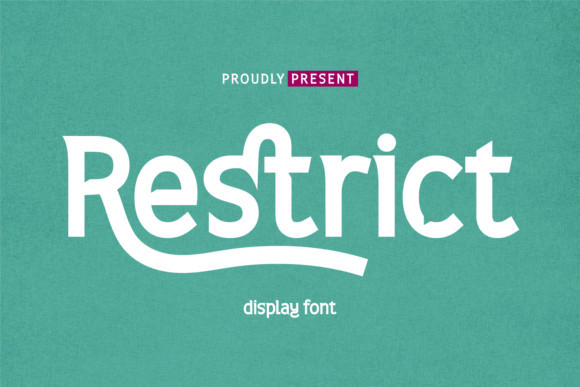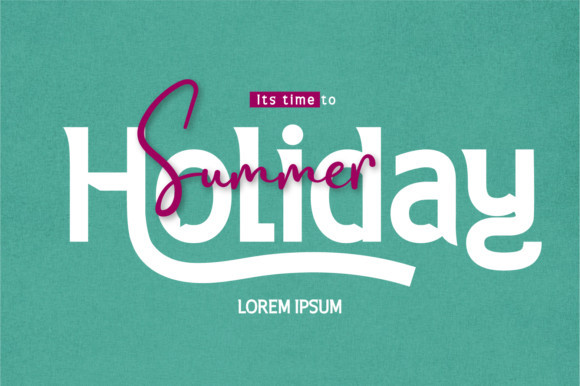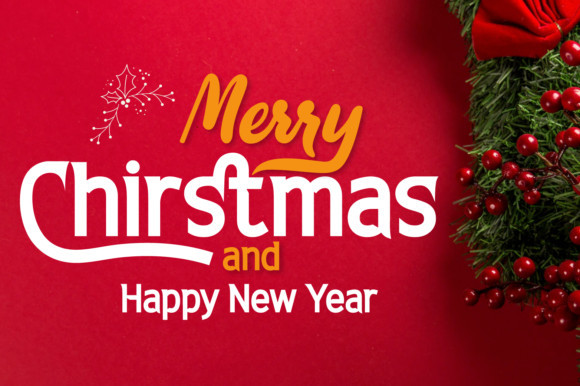
Restrict Font
Restrict is a bold and thick lettered serif font. No matter the topic, this font will be an incredibly asset to your fonts’ library, as it has the potential to elevate any creation.